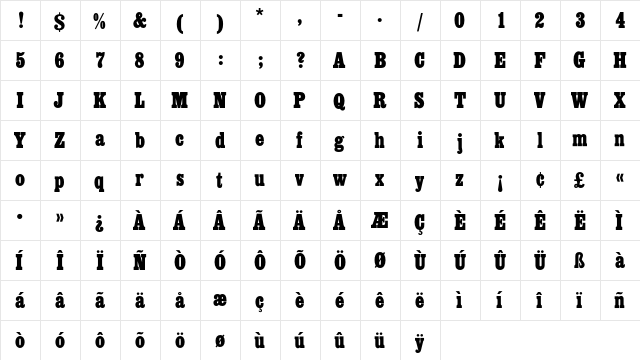
EgyptianEF BoldCondensed Font Preview
Design Context for EgyptianEF Typeface
EgyptianEF combines the readability of serif typography with the visual weight of a slab construction, resulting in a typeface that feels both authoritative and approachable. Its bold stroke weight gives it real presence on the page. Its narrow stance lets it pack a punch even in space-constrained designs.
Suited to magazines, political campaign materials, bold packaging, and any setting where authority matters.
Pro Tip: Use EgyptianEF for headlines and subheadings where its slab serifs can make an impression. It also holds up well in mid-size body copy thanks to its sturdy construction.